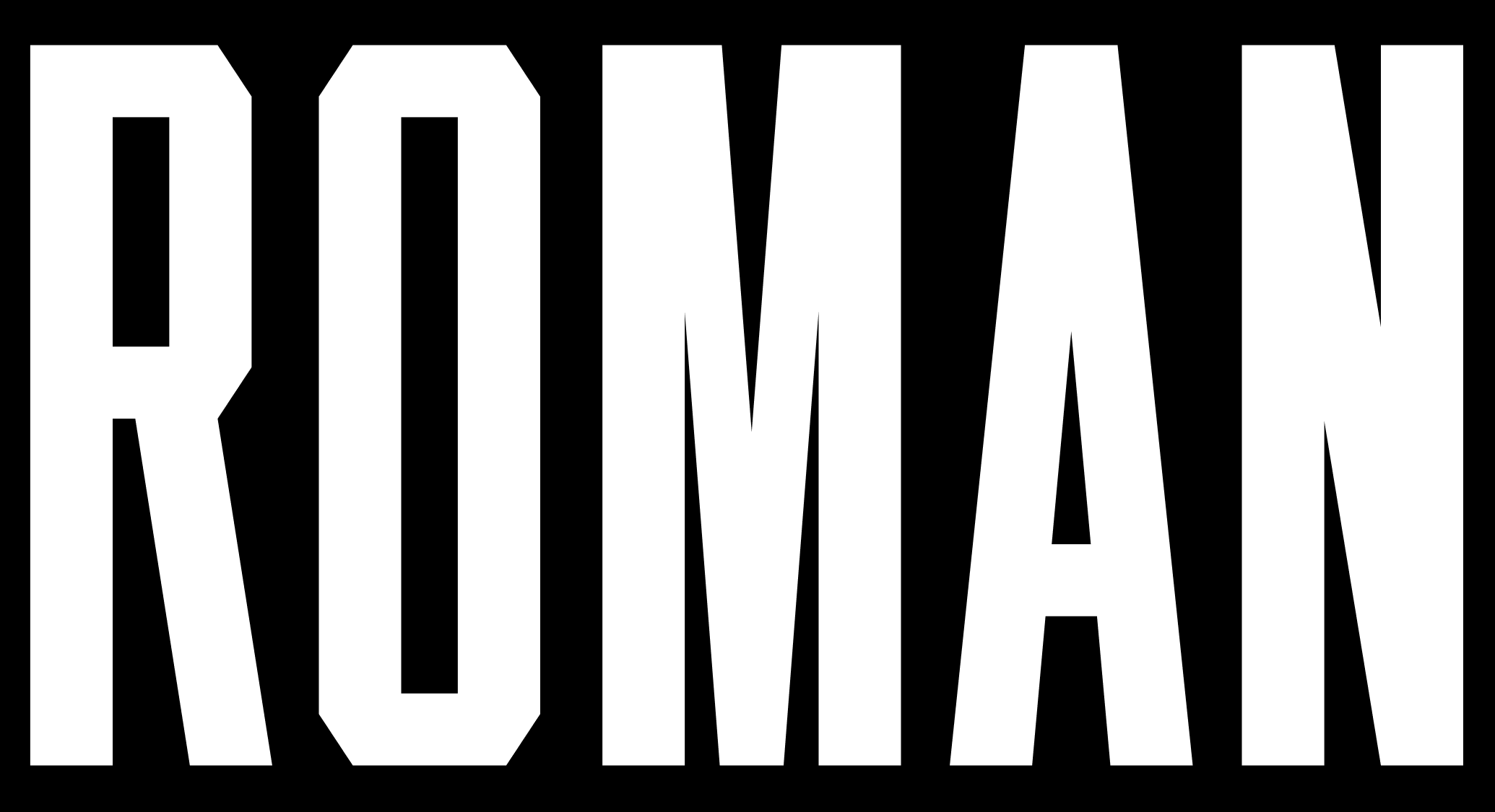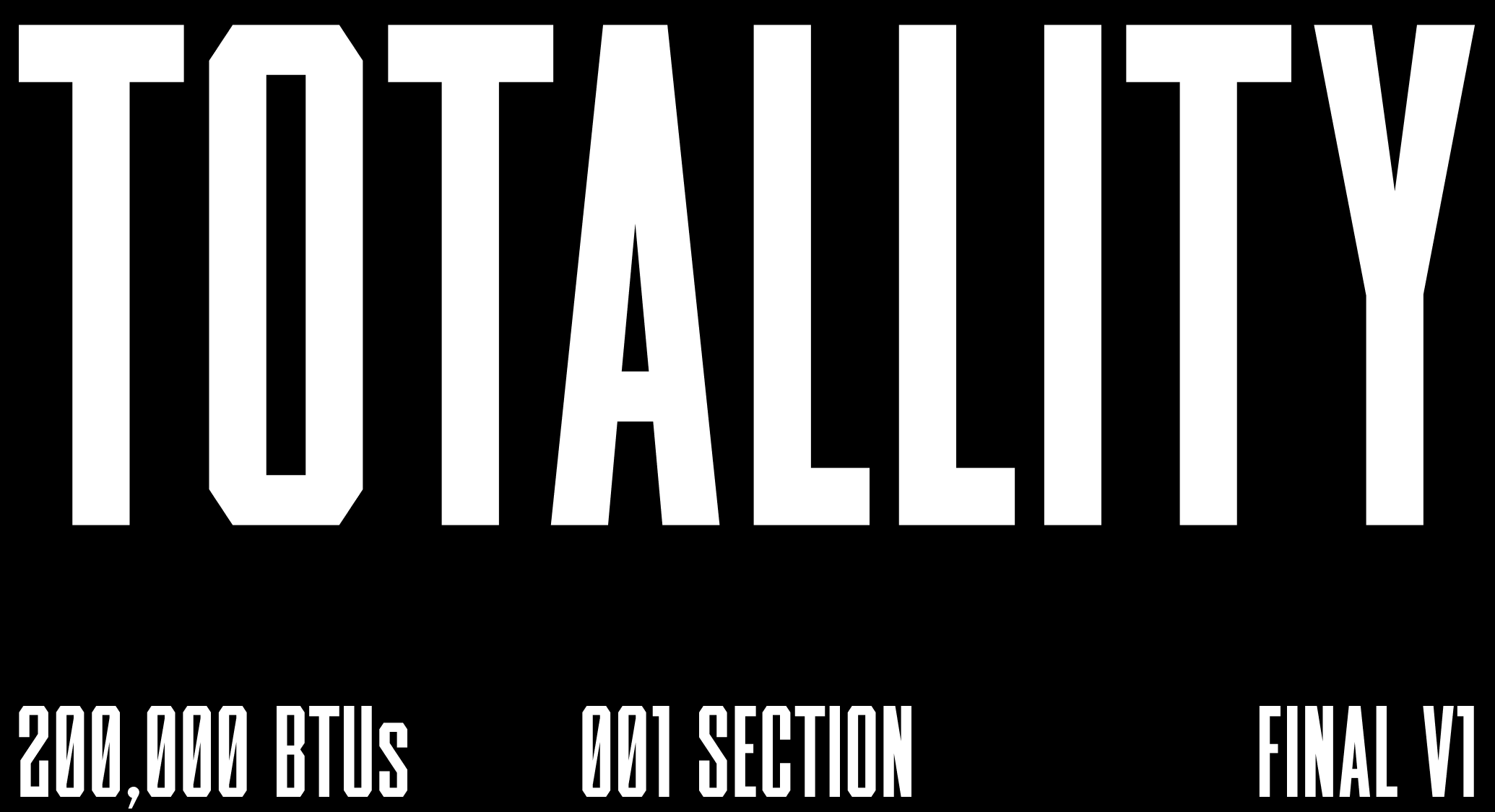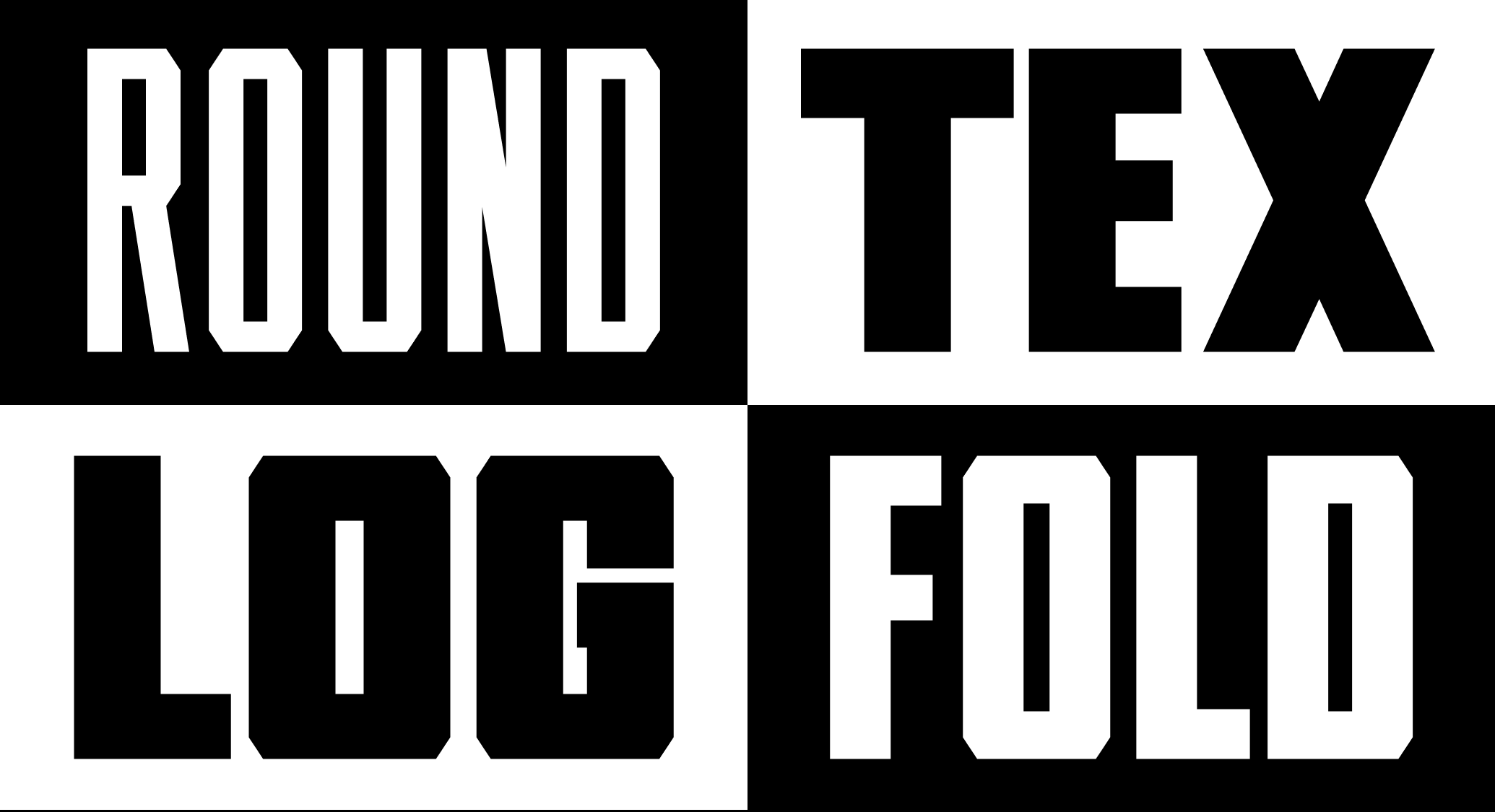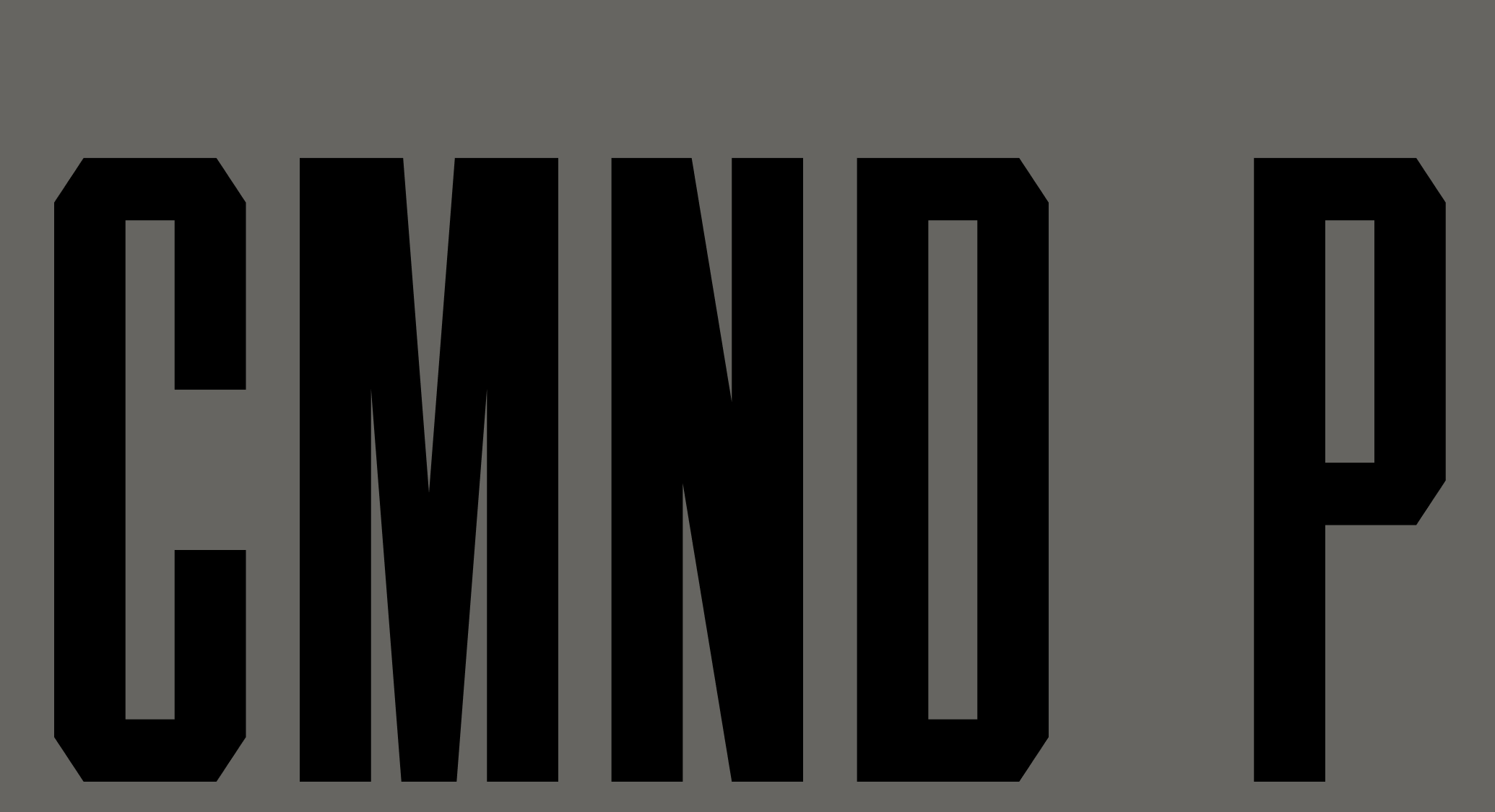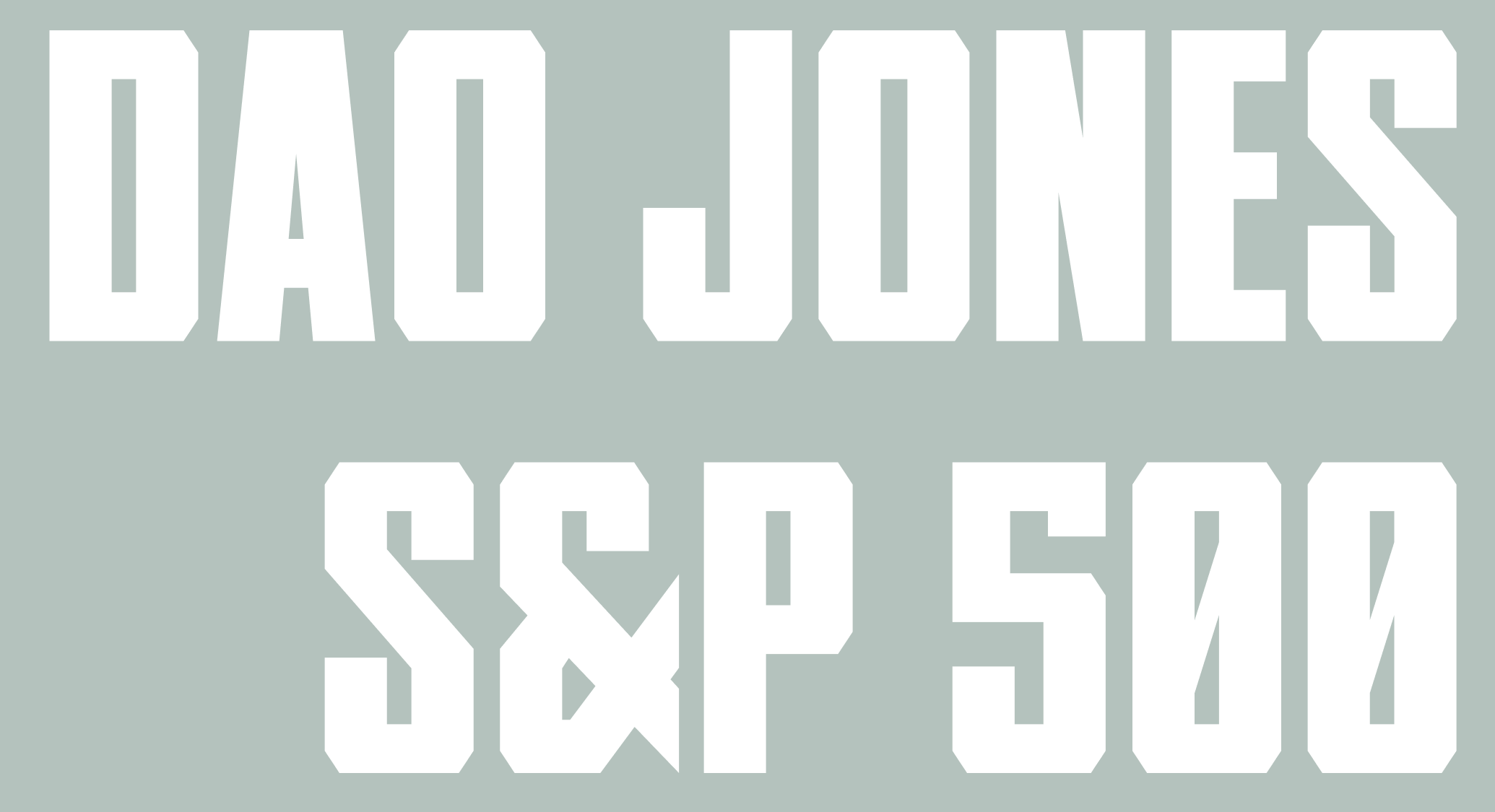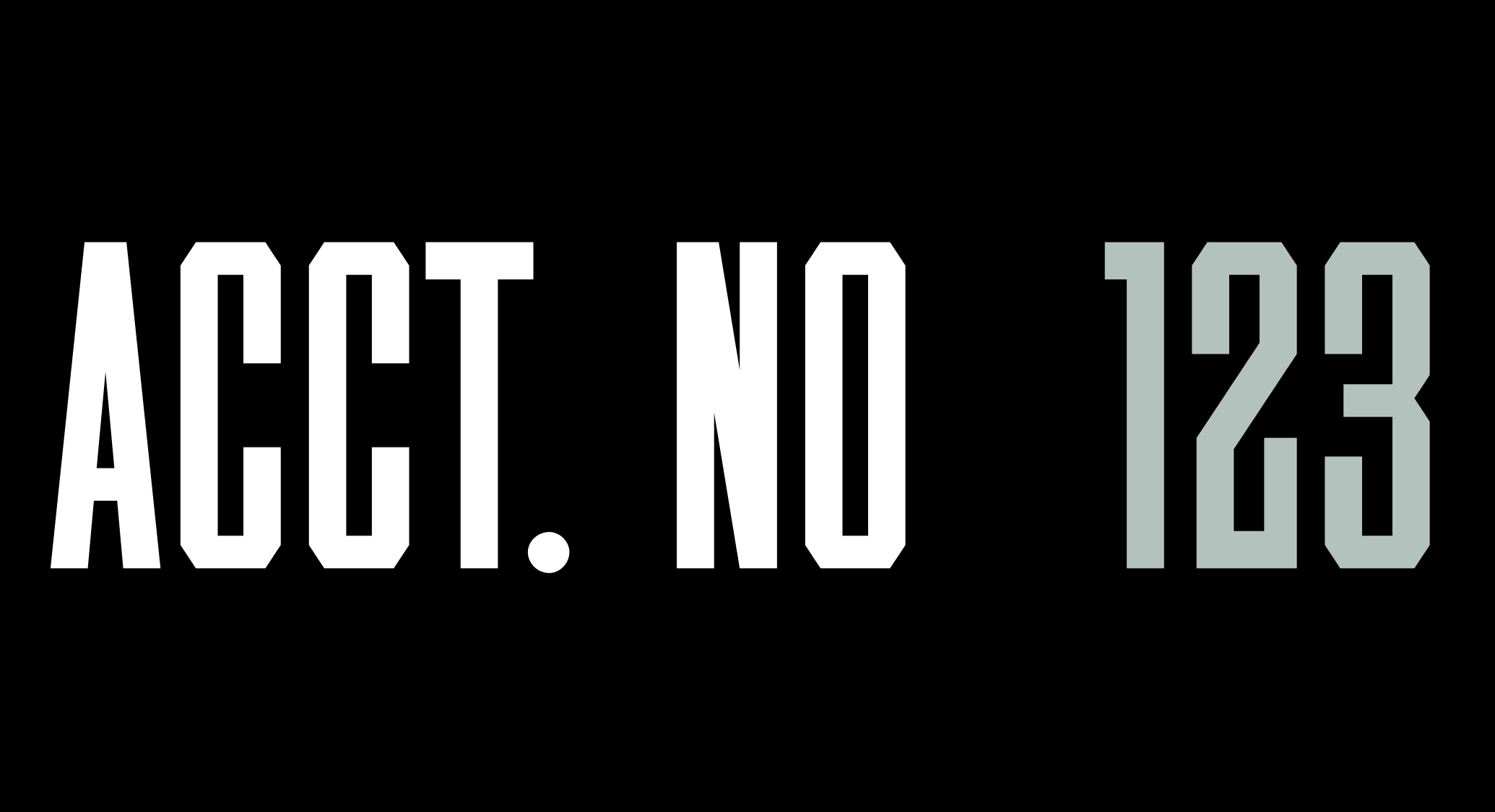
AF Carter
AF Carter is a towering typeface. This blocky sans-serif, available in two styles, is built on a rigid grid system, and thanks to its striking verticality, is equally at ease on the front of a glossy magazine or the back of a grass-stained jersey. Whatever its target, it hits hard. Stylistic sets allow designers to profoundly manipulate Carter from blunt to smooth, thereby dialing its personality from warlike to peace-loving.